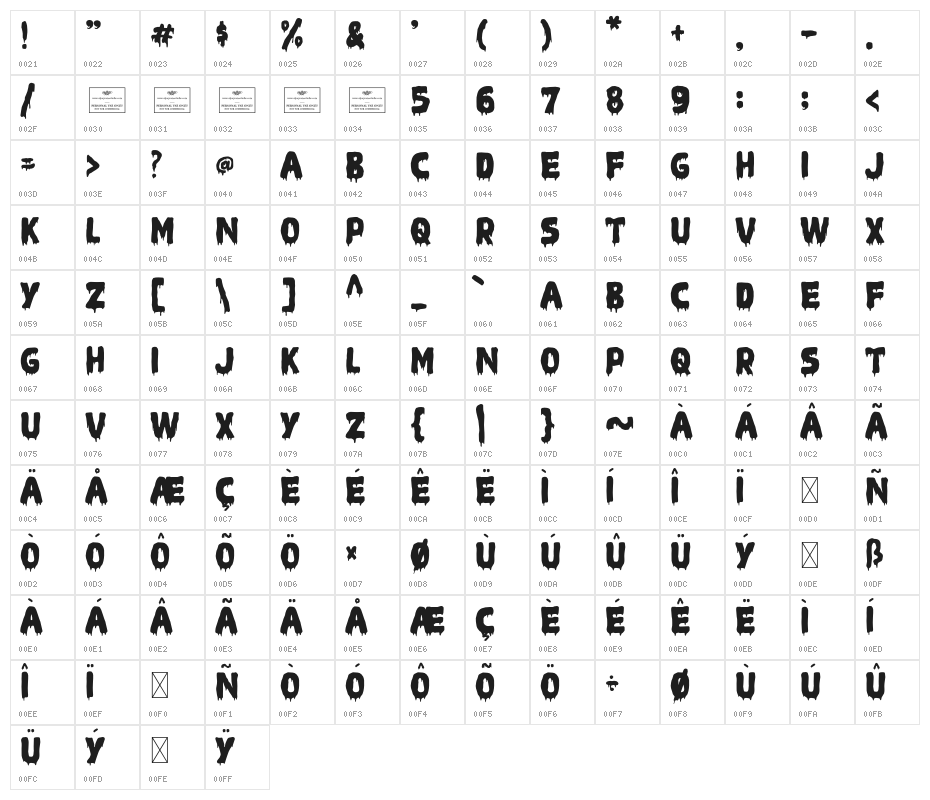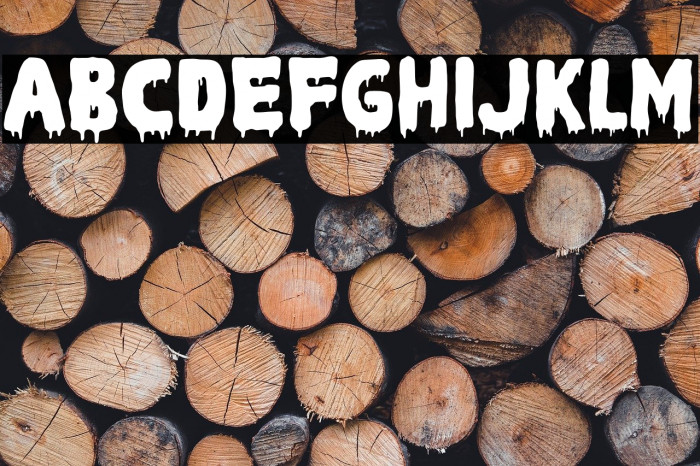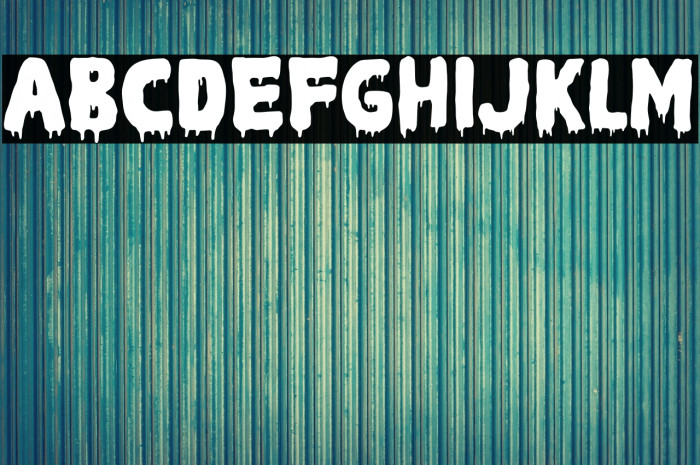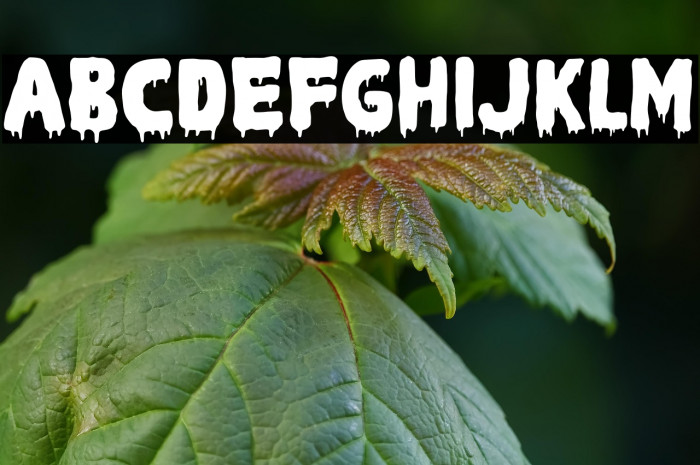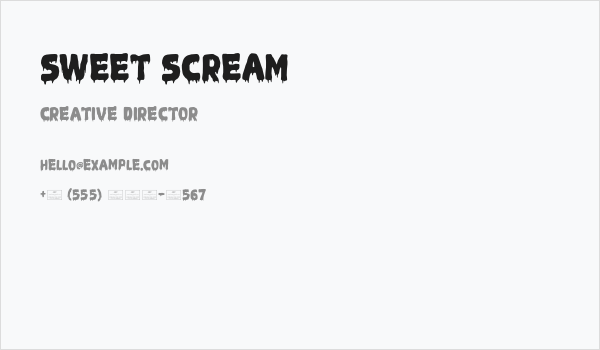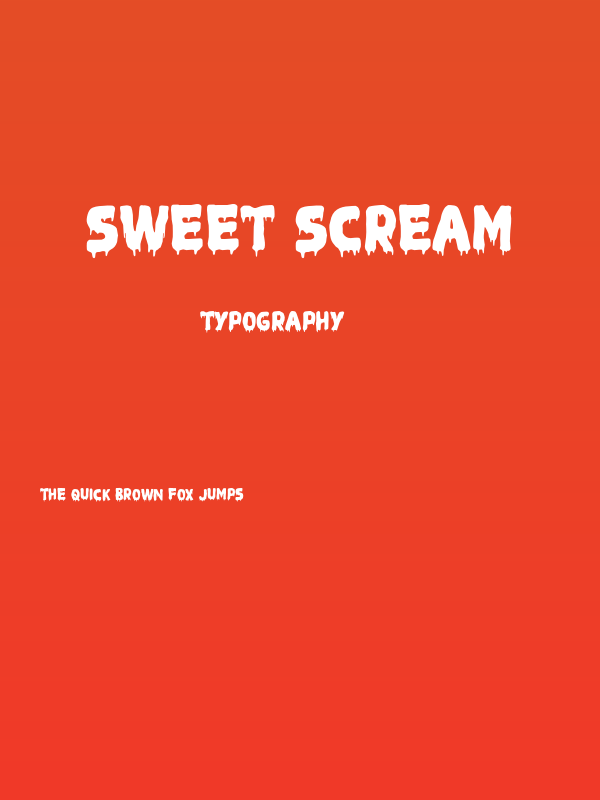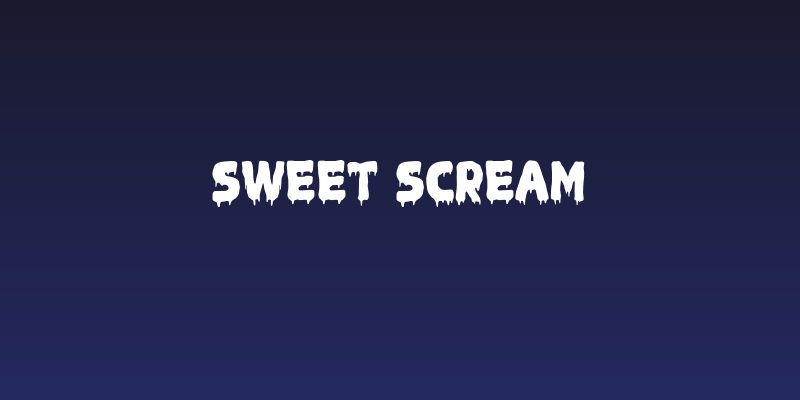
Sweet Scream Font
Sweet Scream Description
This font features a playful and spooky design, reminiscent of dripping paint or melting wax, giving it a distinctly eerie and fun appearance. The characters are bold and have a slightly irregular shape, enhancing the playful yet creepy aesthetic. The uppercase and lowercase letters maintain a consistent style, with each character appearing as though it is slowly melting. The numbers and special characters follow the same design principles, ensuring a cohesive look across all glyphs. This font is perfect for Halloween-themed projects or any design that requires a touch of whimsy and horror.
| Proposed Projects | Ideal for Halloween invitations, horror movie posters, themed party decorations, and spooky merchandise designs. |